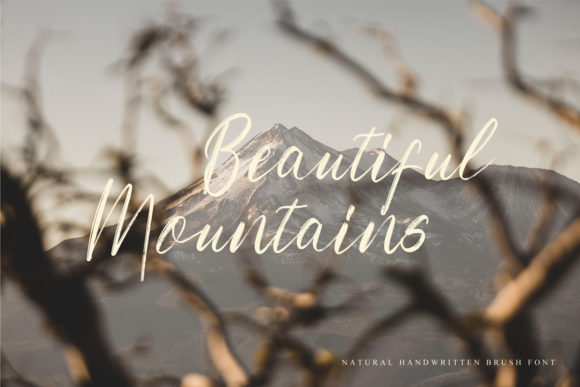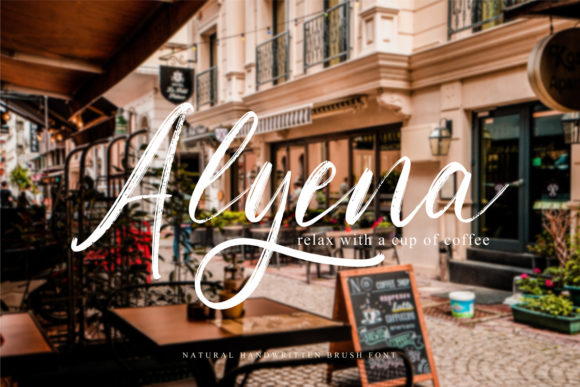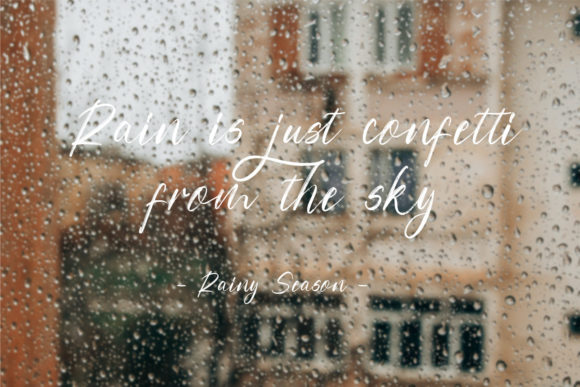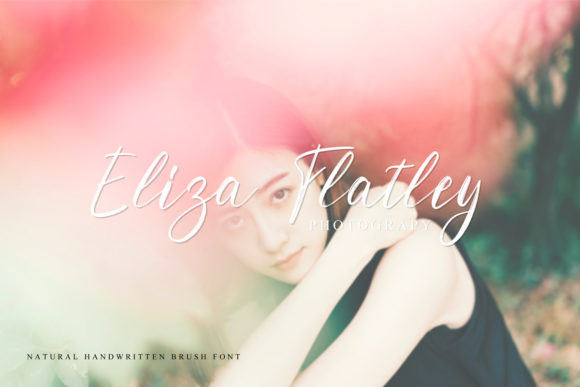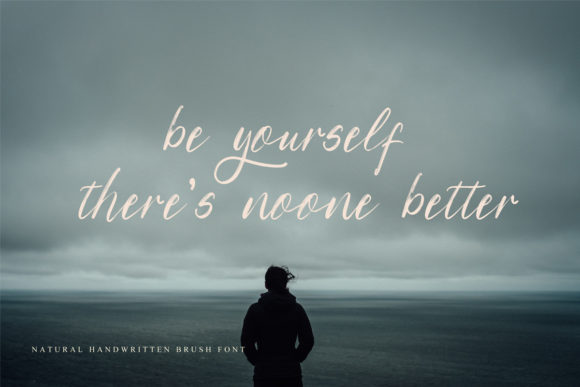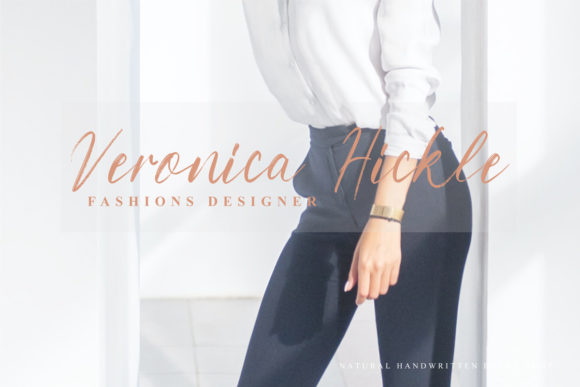
Introduction to Samarata Font
As a designer, have you ever found yourself stuck on a creative project, searching for that perfect font to elevate your design? The right font can make all the difference in conveying your message and setting the tone for your project. I still remember the moment I stumbled upon the Samarata Font, and it was love at first sight. Its gorgeous and beautiful script design reads as strong, confident, and dynamic, making it a game-changer for any design project.
The Samarata Font is a high-quality design resource that can add tons of stylish character to your designs. Whether you’re working on a logo, brochure, or website, this font is sure to make your project stand out. Plus, with its transparent background, you can easily customize it to fit your design needs.
In this article, we’ll dive deeper into the world of the Samarata Font, exploring its features, uses, and benefits for designers. So, let’s get started and discover why the Samarata Font is a valuable addition to any design toolkit.
Key Features of Samarata Font
- High-quality design resource with a unique, creative style suitable for various projects.
- Unique characteristics include elegant lines, intricate details, and a touch of sophistication.
- Perfect for use in creative projects, such as logos, typography, and graphics, requiring a high level of design sophistication.
Honest Review: Samarata Font
As a designer, I’m always on the lookout for high-quality design resources that can elevate my creative projects. Recently, I had the chance to work with the Samarata Font, and I’m excited to share my thoughts on it.
- ✨ The Samarata Font is incredibly versatile, making it perfect for a wide range of creative projects.
- ✨ The design is clean and modern, with a transparent background that makes it easy to use on any background.
- ✨ The font is highly legible, even at small sizes.
- ⚠️ The font may not be suitable for projects that require a lot of bold or italic text.
Overall, I’m impressed with the Samarata Font. It’s a great addition to any designer’s toolkit, and I would definitely recommend it for any creative project that requires a clean and modern look.
Tips for Getting the Most Out of Samarata Font
For optimal results, use the Samarata Font in conjunction with a transparent background to create a seamless design. Experiment with different font sizes and styles to find the perfect fit for your creative project.
The Samarata Font is ideal for use in various design projects, including business cards, logos, and social media graphics. Its high-quality design and transparent background make it a versatile design resource for any creative project.